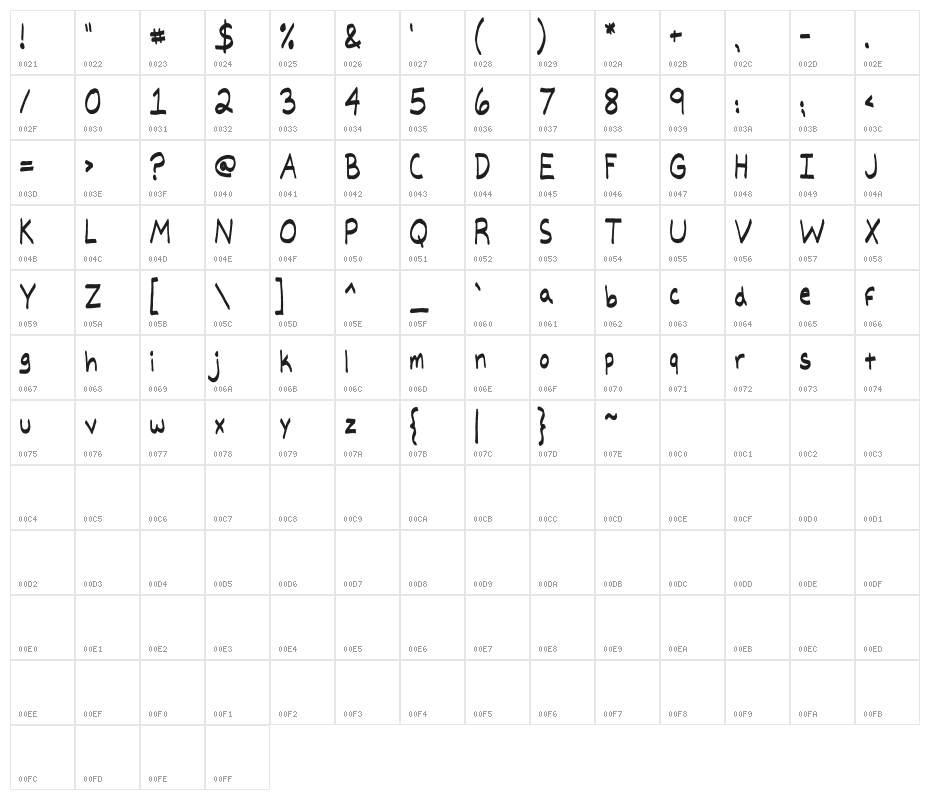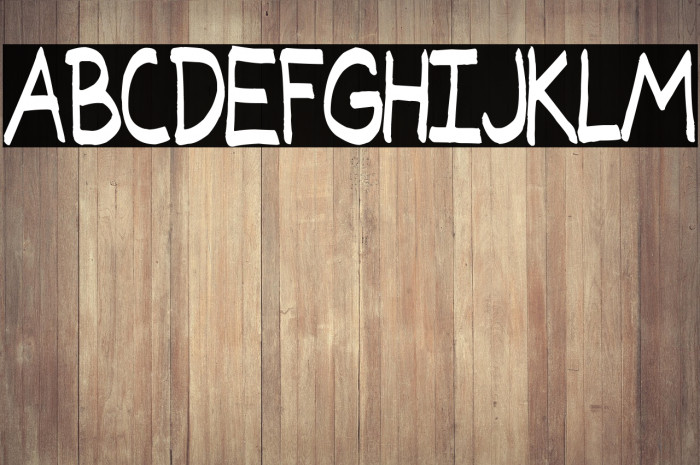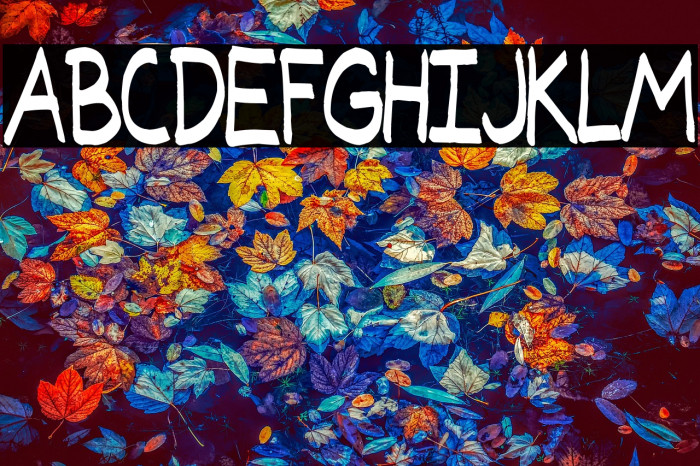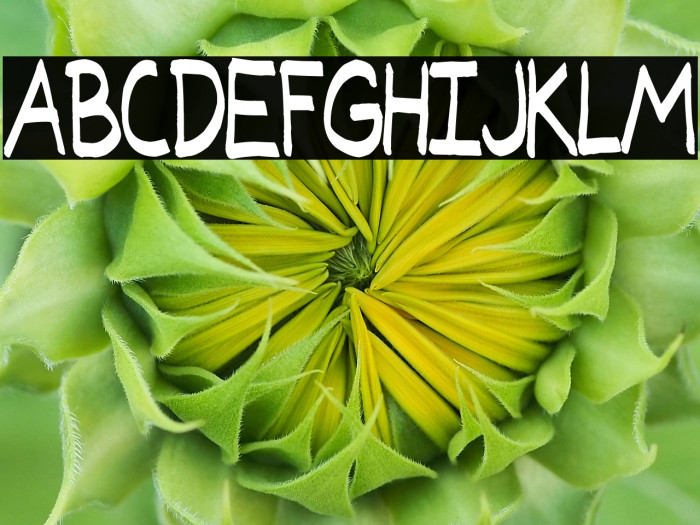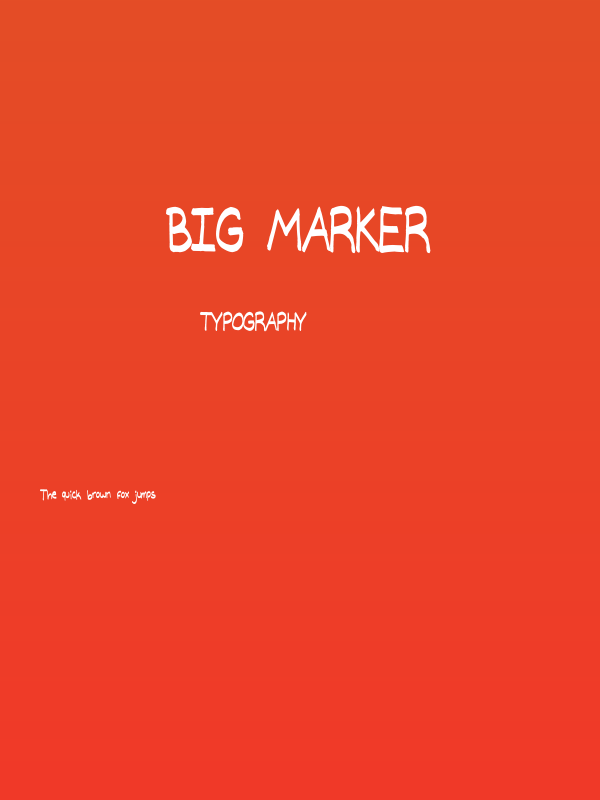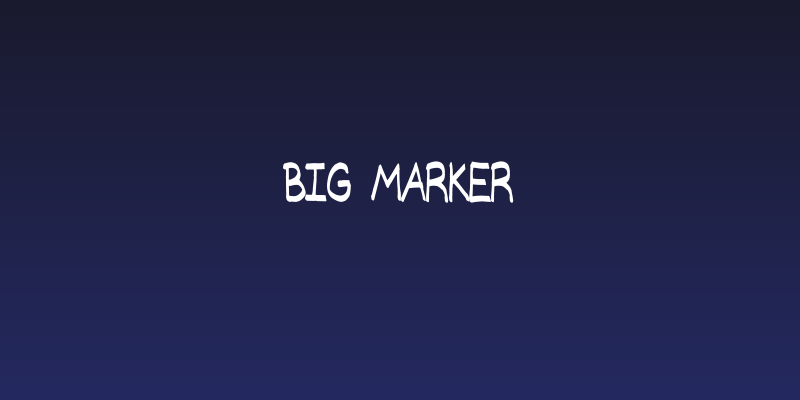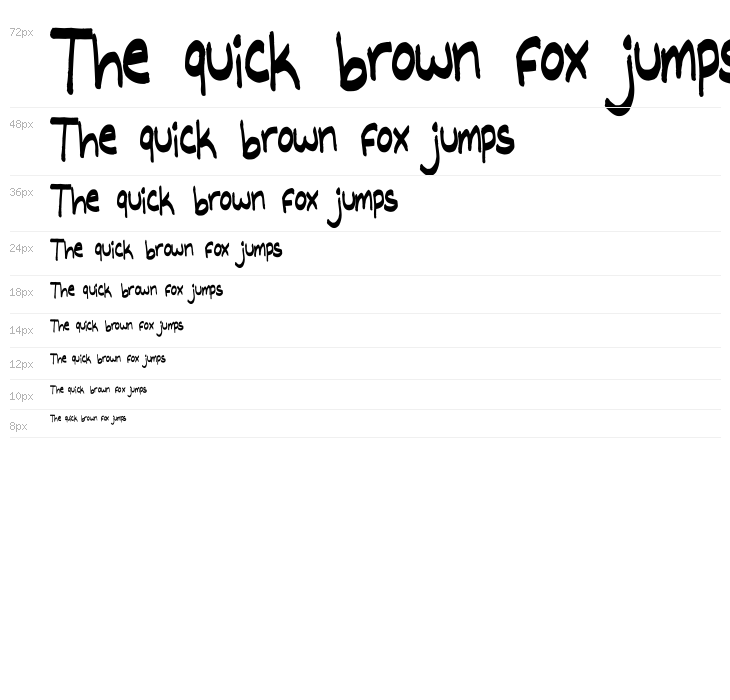
Big Marker Font
Big Marker Description
This font exudes a playful and informal style, reminiscent of handwritten notes with a bold marker. The characters are slightly irregular, giving them a casual and approachable feel. The uppercase and lowercase letters maintain a consistent style, with rounded edges and varying stroke widths that add to the hand-drawn aesthetic. The numbers and special characters follow the same design principles, ensuring a cohesive look across all elements. This font is perfect for projects that require a personal touch or a sense of spontaneity.
| Proposed Projects | Ideal for children's books, casual invitations, personal blogs, or any project needing a friendly, informal touch. |